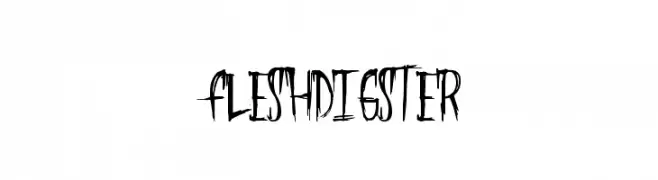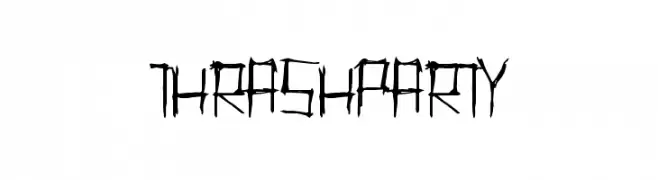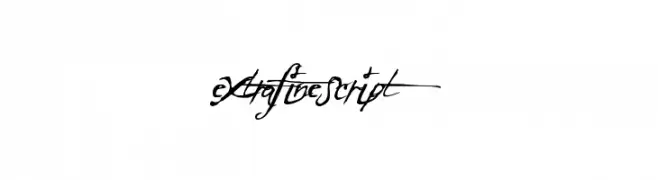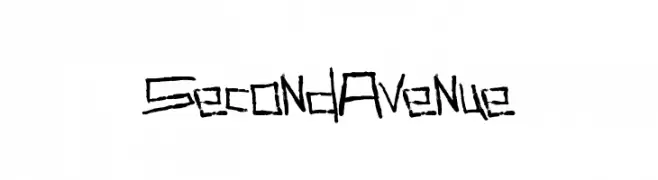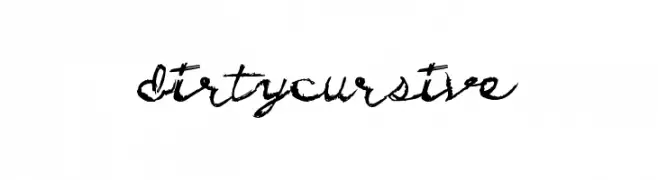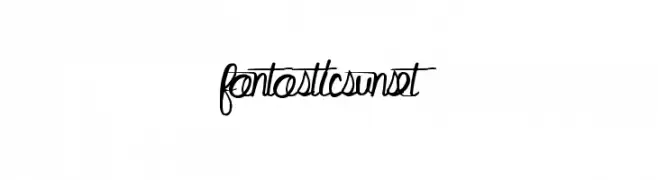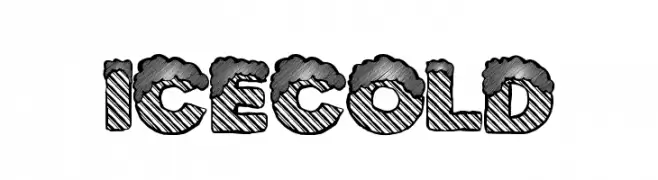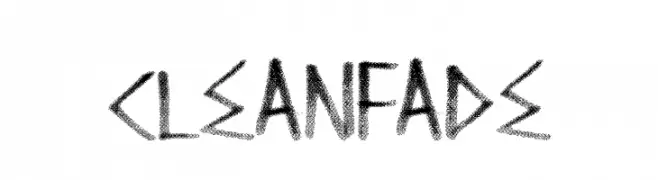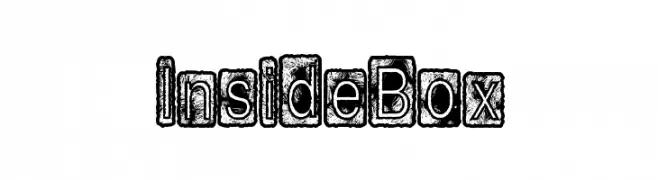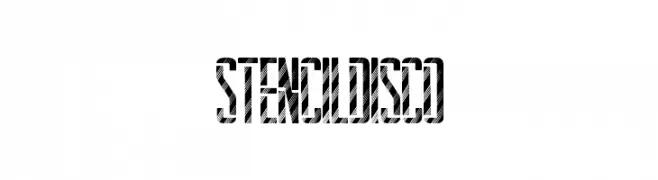
A bold, grunge-style font with jagged, irregular characters.
A jagged, edgy font with sharp, angular strokes for a rebellious look.
A bold, cursive font with high contrast and dramatic flourishes.
An elegant and sophisticated script font with intricate, flowing characters.
A graffiti-inspired font with jagged, angular lines and a rebellious, edgy style.
A whimsical, heart-themed decorative font with a striped pattern.
A distressed, textured cursive font with a dynamic, handwritten appearance.
A playful, expressive handwritten font with fluid, interconnected strokes.
A decorative font with intricate snowflake patterns within bold characters.
A playful, icy font with bold, textured letters resembling snow-covered surfaces.
A bold, hand-drawn font with a playful, graffiti-like style.
A novelty display font using meme and pop culture graphics for each character.
A bold, textured, hand-drawn font with an energetic and artistic style.
A rugged, distressed font with a brush-like texture and jagged edges.
A bold, distressed font with characters enclosed in textured boxes, perfect for vintage and grunge designs.
A bold stencil font with dynamic diagonal lines and a cohesive design.
A bold, geometric stencil font with sharp angles and dynamic cut-outs.
A tall, narrow, hand-drawn font with a playful and artistic style.
A bold, handwritten font with a playful and dynamic style.
A bold, brush-style font with dynamic, hand-painted strokes.
A dripping, horror-themed font perfect for spooky designs.
A decorative font with characters formed by small, curved strokes, offering a playful and artistic appearance.
A bold, brush-style font with an energetic and artistic flair.
A playful and quirky font with irregular, dynamic letterforms.
A sophisticated cursive script with flowing, intricate loops and swashes.
A bold, textured font with a hand-drawn, artistic style.
A bold, futuristic font with angular, geometric characters.
A bold, geometric font with a futuristic and modern design.
A bold, hand-drawn font with a playful and organic style.
A bold, distressed font with a grunge texture, perfect for edgy designs.
A bold, distressed font with a gritty, vintage appearance.
A lively, cursive font with fluid, interconnected strokes and a personal touch.